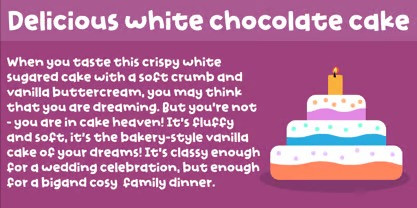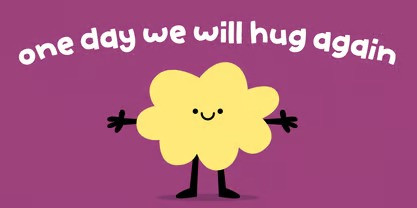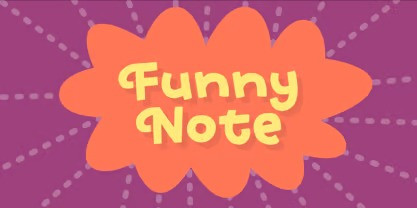
Comic Vaganza Display Font
Comic Vaganza is a display font with a block font theme that has a bold shape.
Comic vaganza is made inspired from comics or cartoons so that the shape of the comic vaganza is made with a comic/cartoon themed touch.
Of course, this font is perfect if you are a fan of comics or cartoons for your design projects.